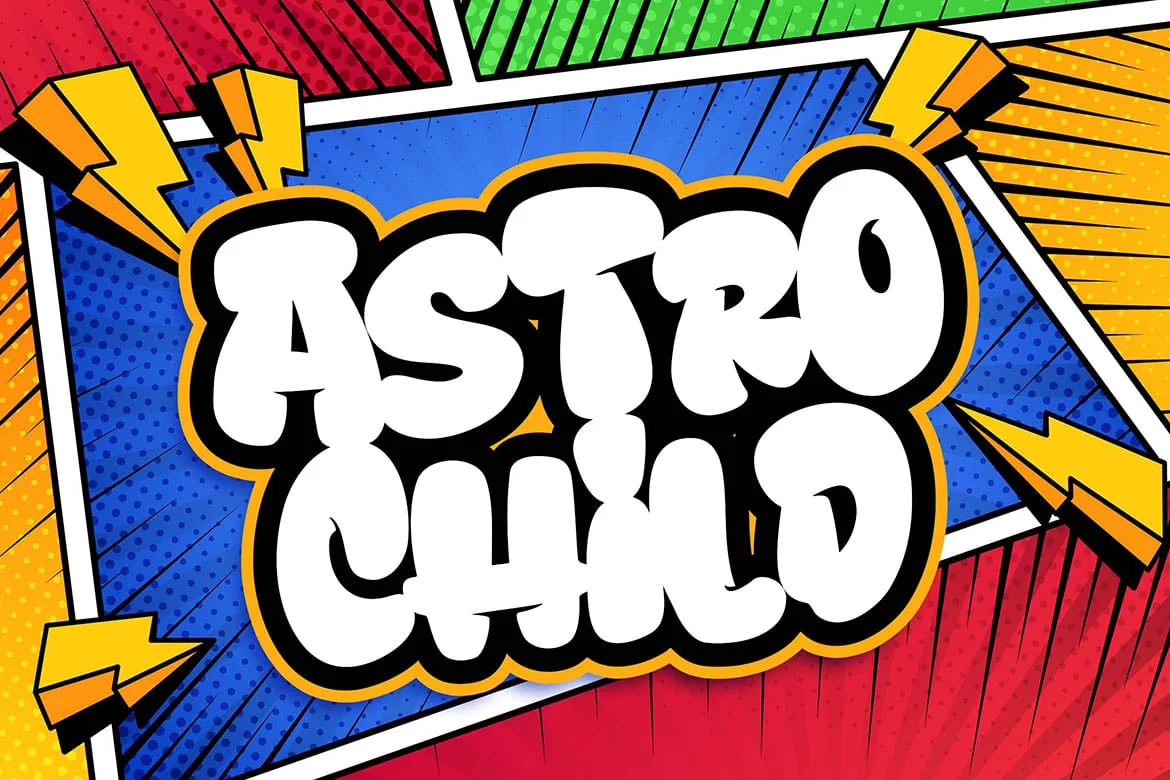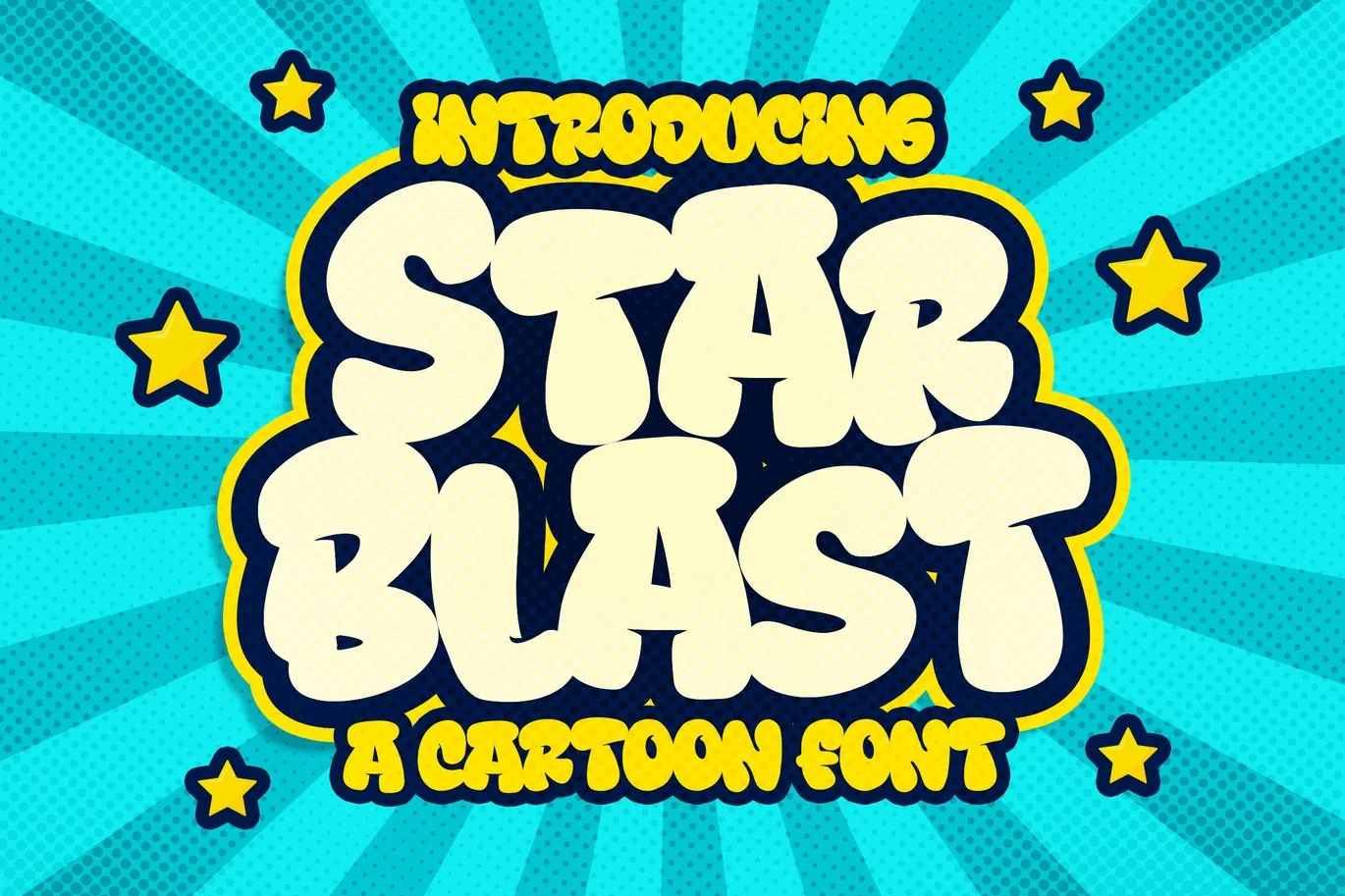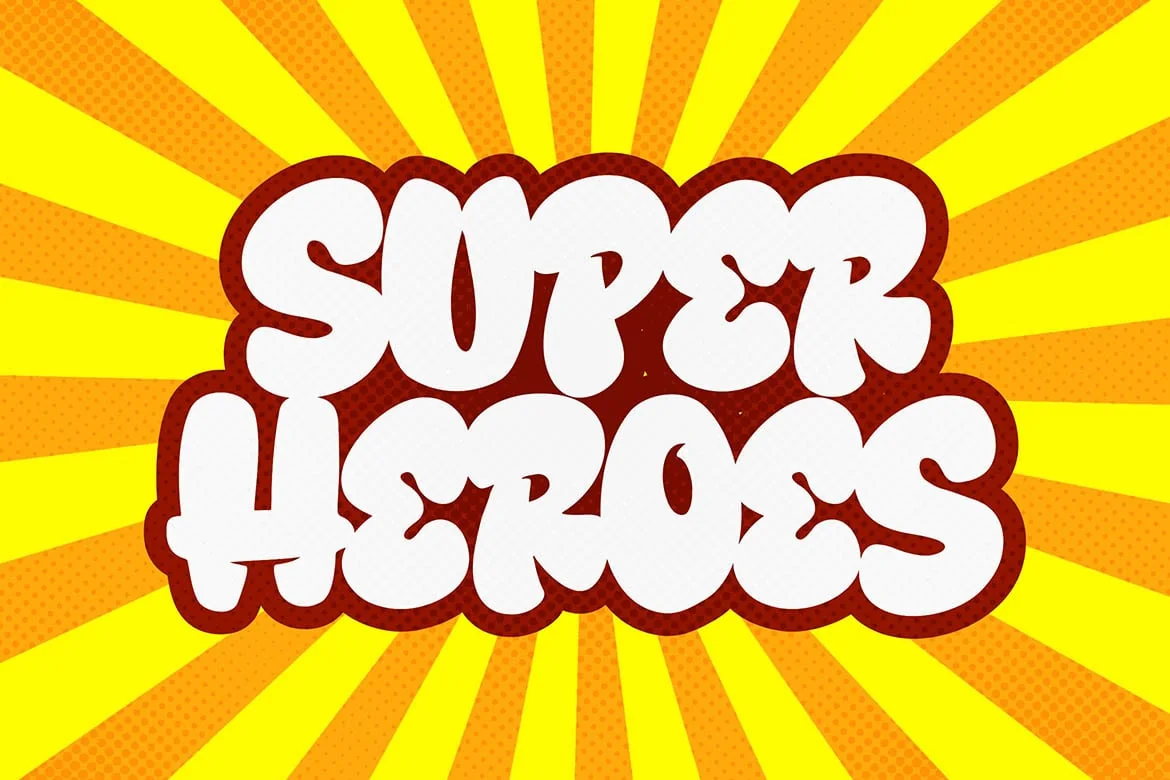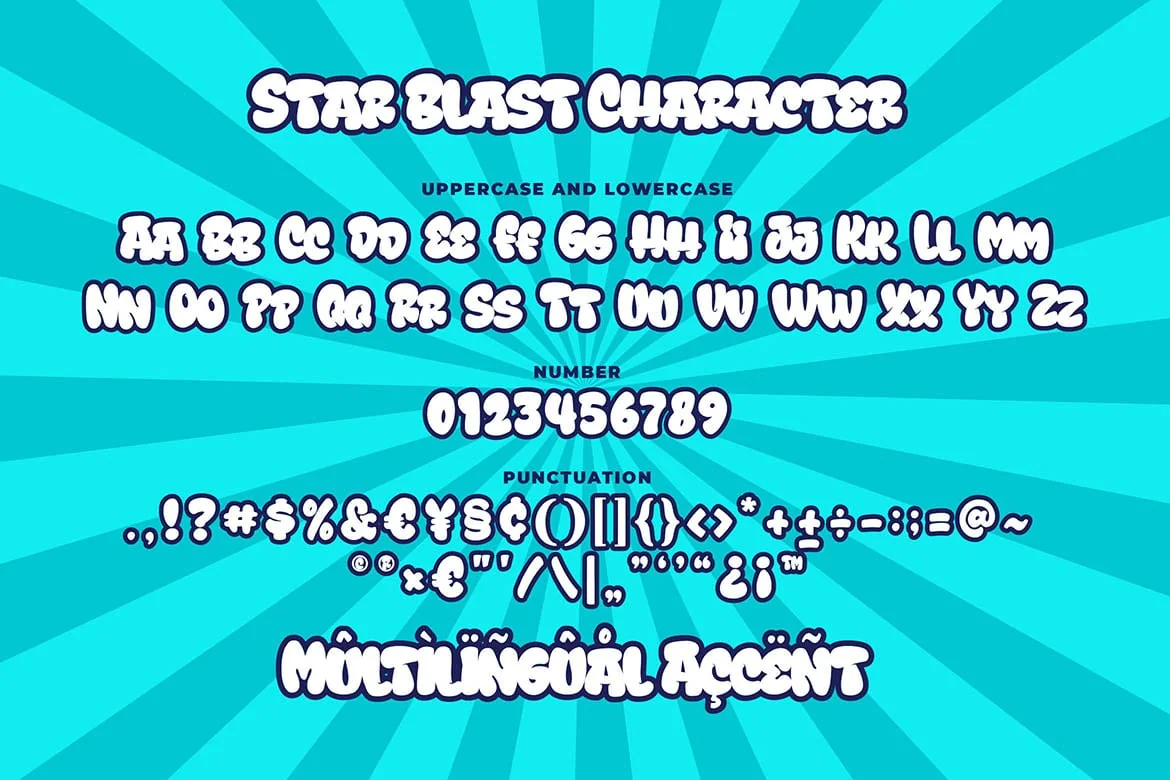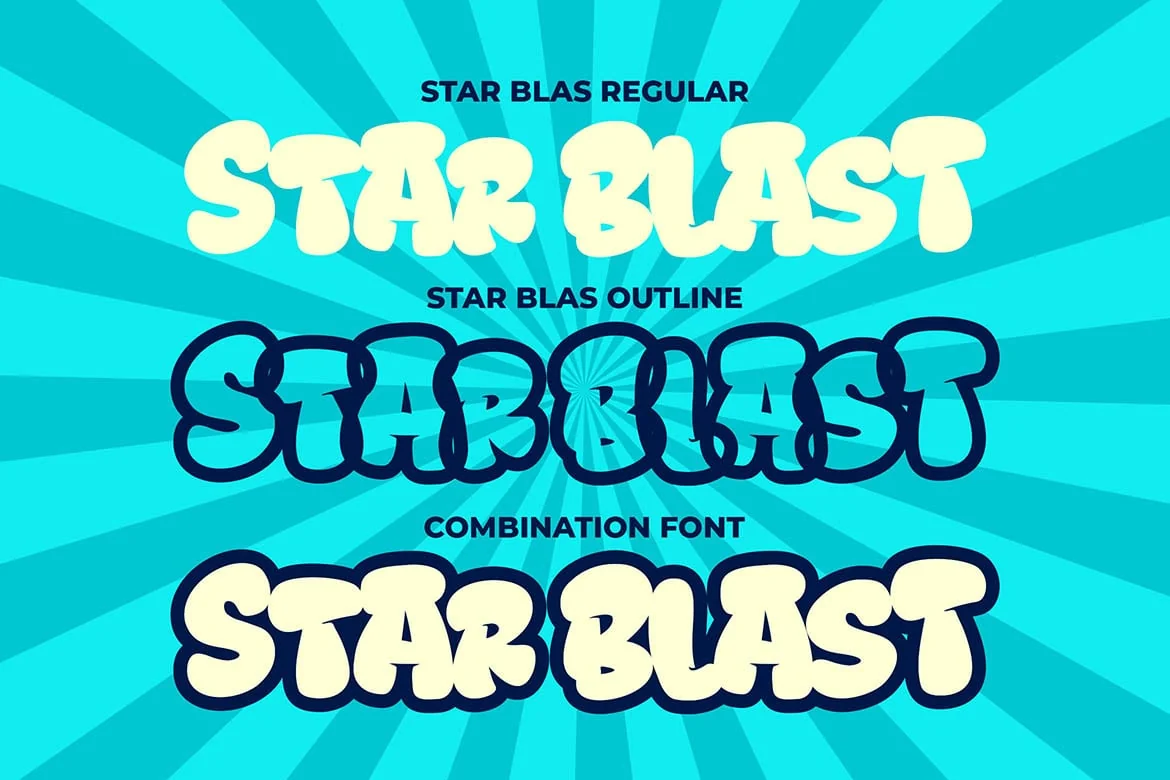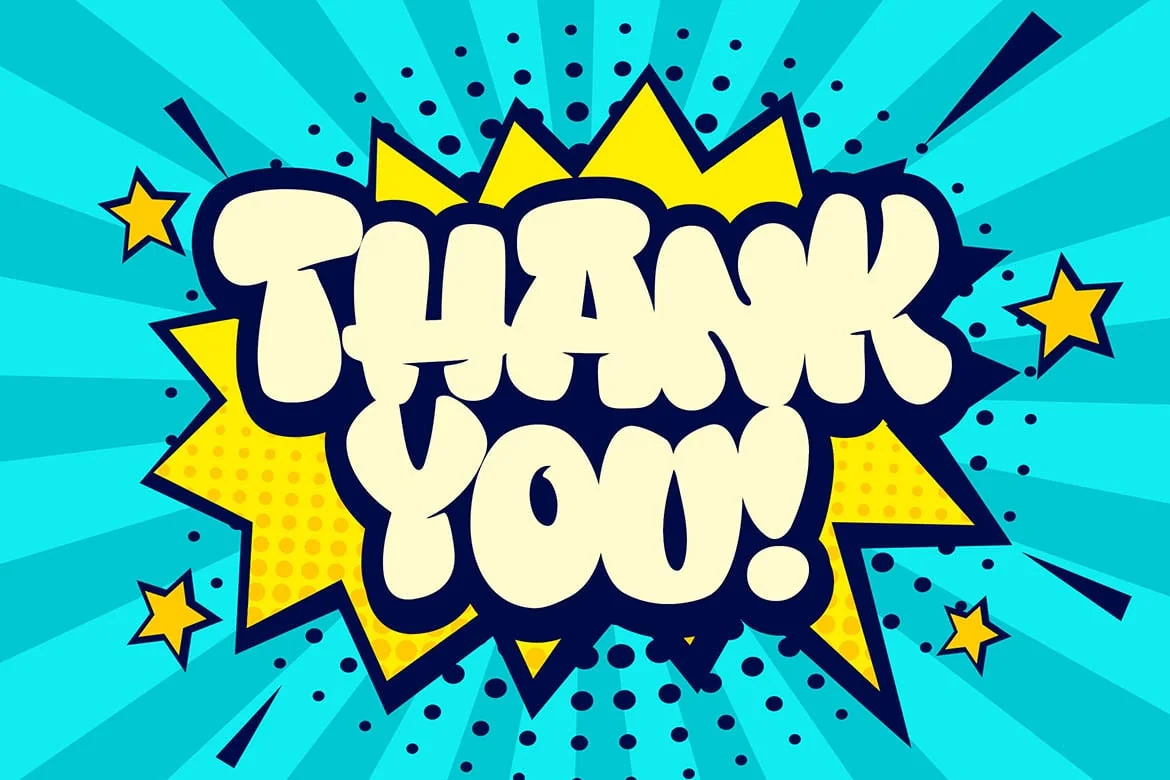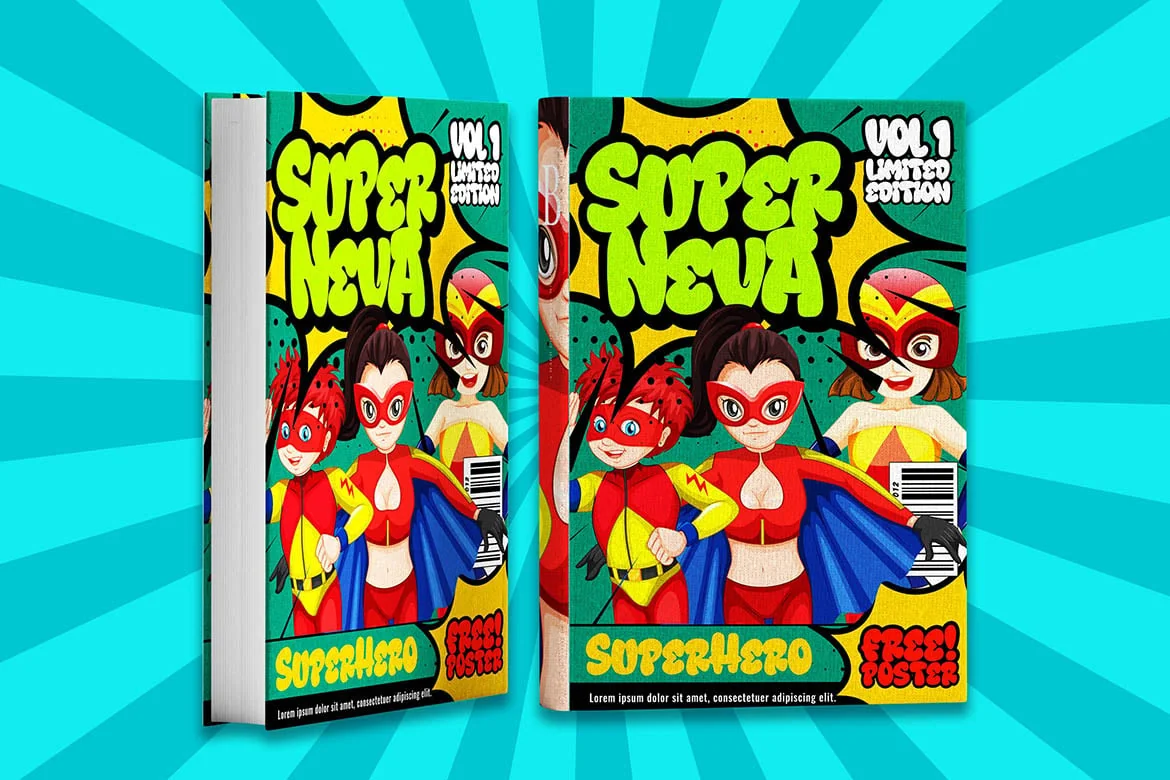
Star Blast a Playful Cartoon Font
Introducing of our new product the name is Star Blast a Playful Cartoon Font, Star Blast inspired by Playful style with a fun theme very good for kids and playful theme design.